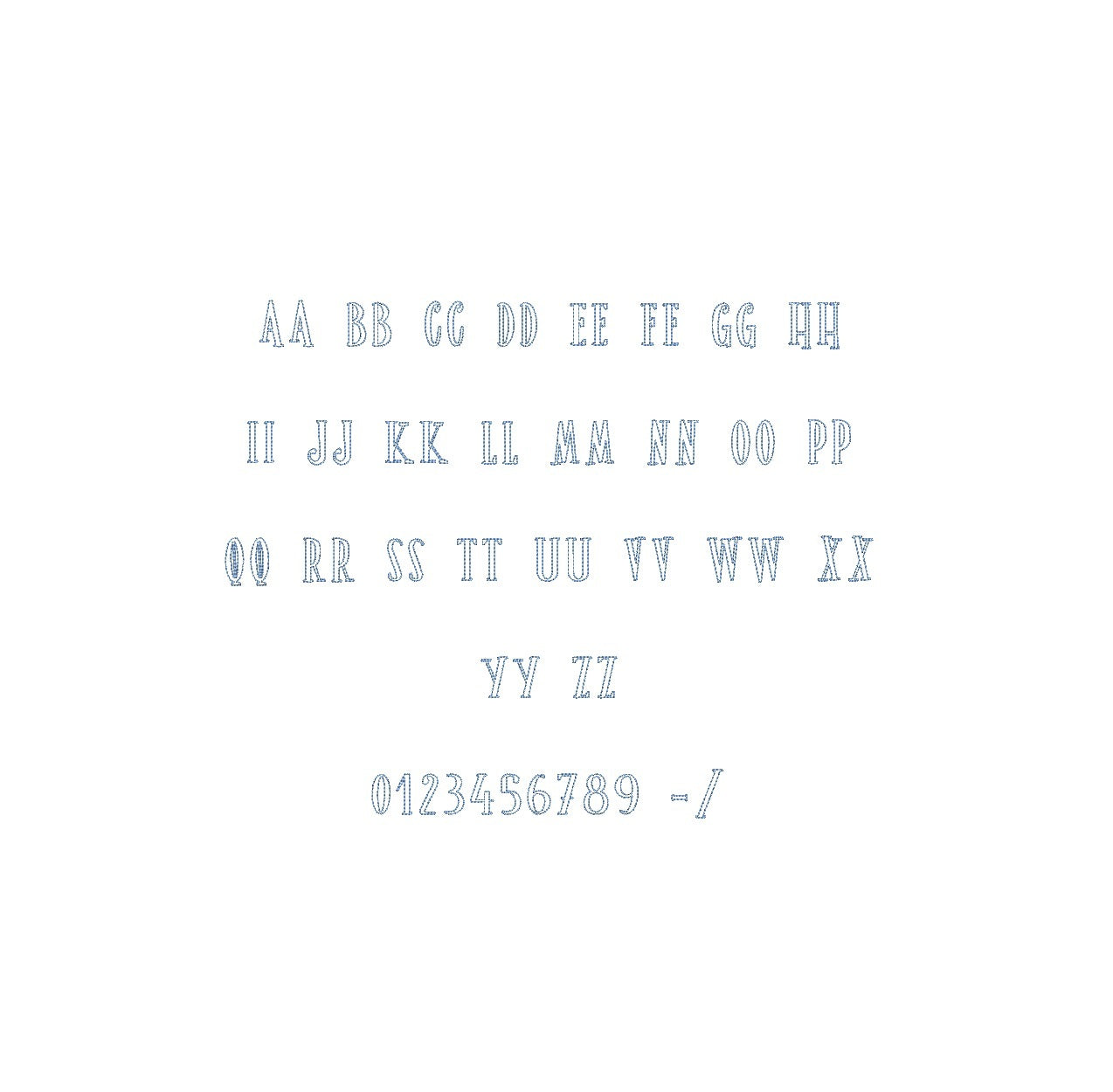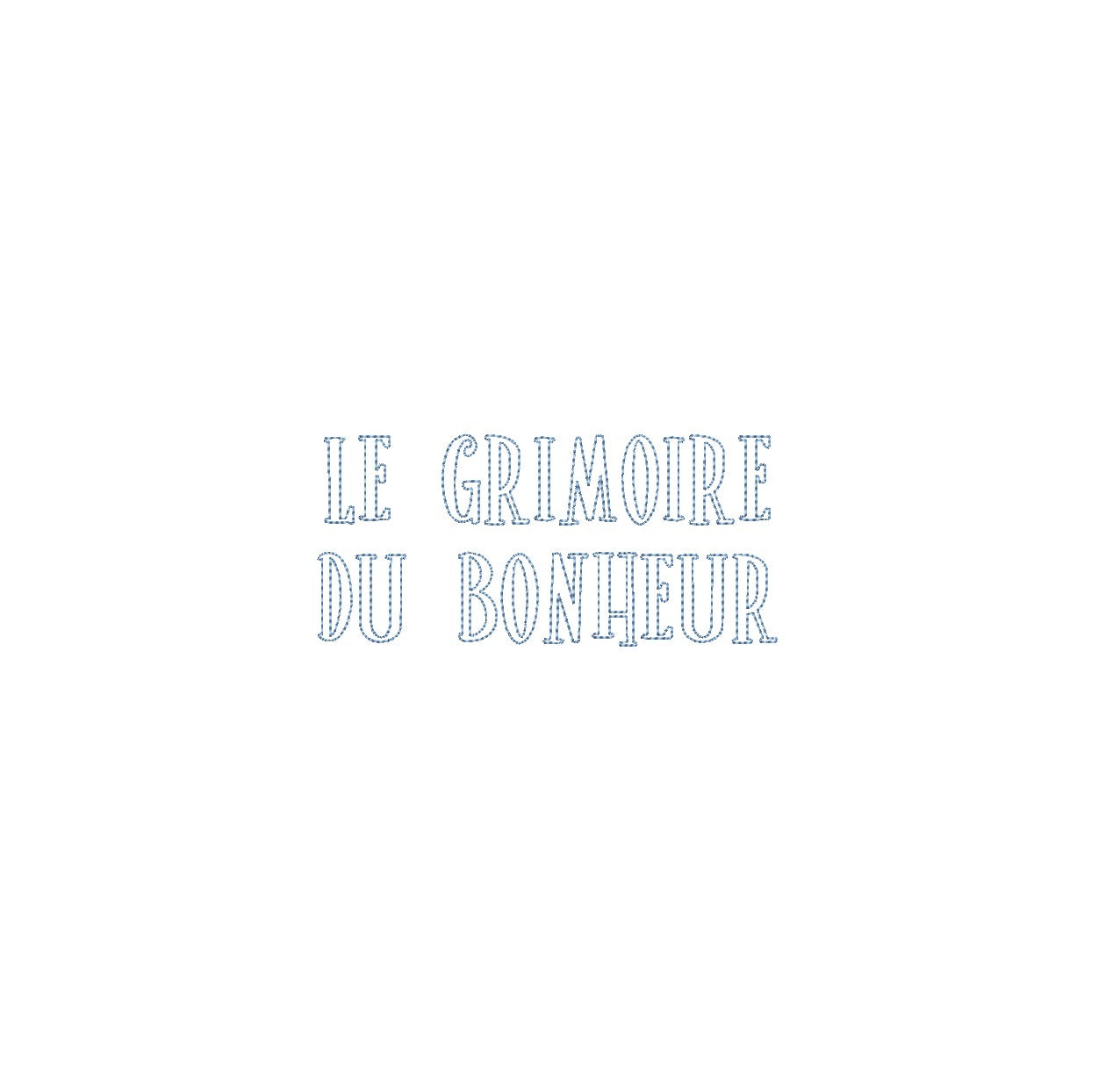
Discover the enchanting Le Grimoire Du Bonheur Bean Outline ESA font, perfectly compatible with Wilcom Studio e4.5.6 and Hatch 3 versions and above. Elevate your embroidery projects with this captivating font that seamlessly combines intricate detailing and timeless appeal. Crafted for precision, the Bean Outline ESA font adds a touch of magic to your designs, whether it's monogramming, embellishments, or personalized creations. Immerse yourself in creativity as you integrate this font flawlessly, ensuring impeccable stitching and unmatched quality. Elevate your embroidery experience today with Le Grimoire Du Bonheur Bean Outline ESA font—a must-have for Wilcom Studio and Hatch users.